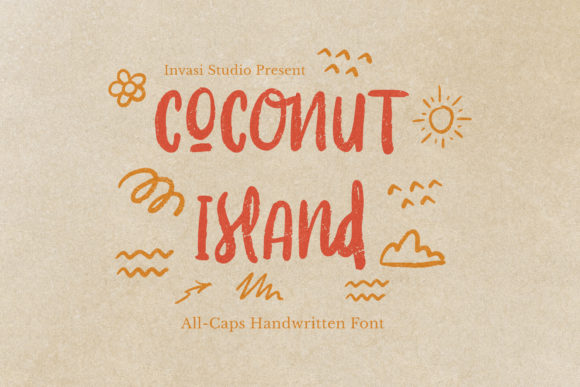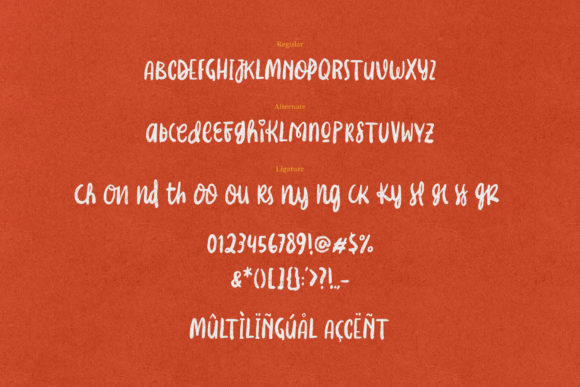
About Coconut Island Font
Coconut Island is a cute and trendy brushed handwritten font. No matter the topic, this font will be an incredibly asset to your fonts’ library, as it has the potential to elevate any creation.